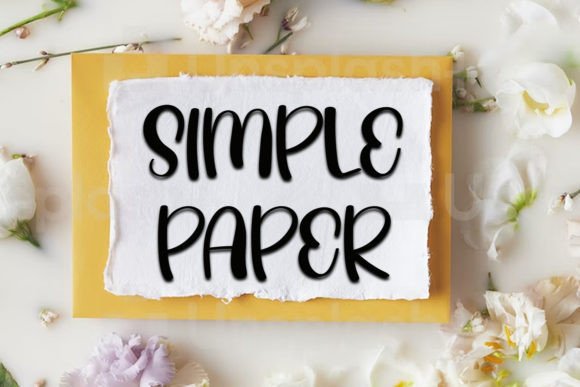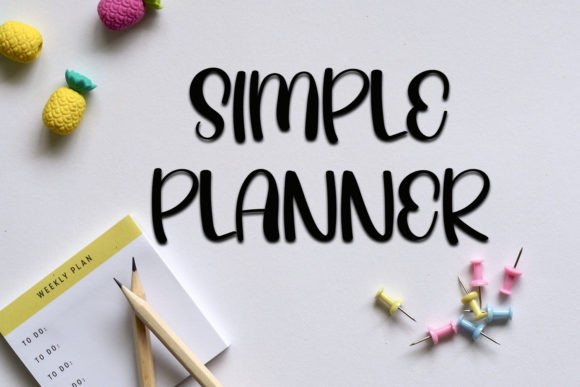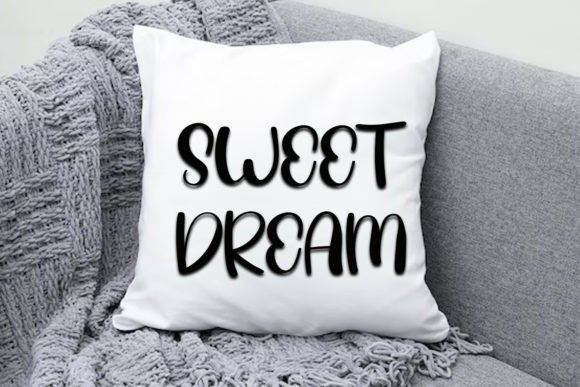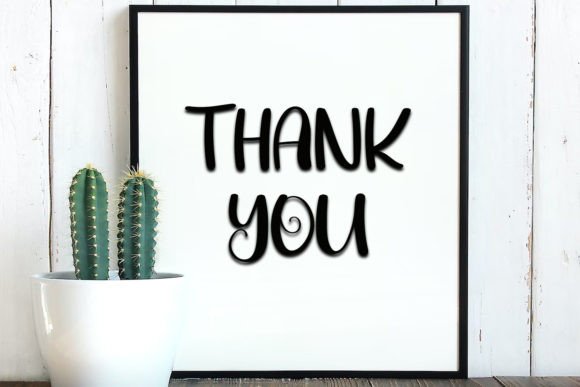
Cactus Font: The Perfect Addition to Your Design Collection
Are you a designer or crafter looking for a fresh and beautiful font to elevate your designs? Look no further than Cactus Font! This stunning font is perfect for a variety of design purposes, including YouTube banners, cover logo mockups, wedding invitations, ID cards, flyers, and crafts.
What is Cactus Font?
Cactus Font is a unique and visually appealing font that is sure to make your designs stand out. Its fresh and beautiful style makes it perfect for a wide range of projects, from modern and trendy to rustic and vintage. The font is designed to be highly versatile, making it suitable for use in a variety of contexts, from digital designs to print materials.
Key Features of Cactus Font
- Fresh and Beautiful Style: Cactus Font has a unique and visually appealing style that is sure to make your designs stand out.
- Highly Versatile: The font is suitable for use in a wide range of contexts, from digital designs to print materials.
- Easy to Read: Despite its unique style, Cactus Font is easy to read, making it perfect for use in body text and headings.
Uses for Cactus Font
Cactus Font is a highly versatile font that can be used in a wide range of design projects. Here are some of the most popular uses for the font:
- YouTube Banners: Add a touch of elegance and sophistication to your YouTube banners with Cactus Font.
- Cover Logo Mockups: Create stunning cover logo mockups with Cactus Font, perfect for use on social media profiles and websites.
- Wedding Invitations: Make your wedding invitations truly special with Cactus Font, perfect for creating beautiful and elegant designs.
- ID Cards: Create professional and stylish ID cards with Cactus Font, perfect for use in a business or organization.
- Flyers: Create eye-catching flyers with Cactus Font, perfect for promoting events, products, or services.
- Crafts: Use Cactus Font to add a personal touch to your crafts, such as handmade cards, gift tags, and scrapbooking projects.
Why Choose Cactus Font?
So why choose Cactus Font for your design projects? Here are just a few reasons:
- Unique Style: Cactus Font has a unique and visually appealing style that is sure to make your designs stand out.
- High Quality: The font is high-quality and designed to produce crisp, clear text, even at small sizes.
Tips for Using Cactus Font
Here are a few tips for using Cactus Font in your design projects:
- Use it as a Headline Font: Cactus Font is perfect for use as a headline font, adding a touch of elegance and sophistication to your designs.
- Pair it with Other Fonts: Experiment with pairing Cactus Font with other fonts to create a unique and visually appealing design.
- Use it in Digital Designs: Cactus Font is perfect for use in digital designs, such as social media graphics, website headers, and email newsletters.
- Use it in Print Materials: The font is also suitable for use in print materials, such as brochures, flyers, and business cards.
Cactus Font is a fresh and beautiful font that is perfect for designers and crafters looking to elevate their designs. With its unique style, high-quality design, and ease of use, it’s a great addition to any design collection. Whether you’re creating YouTube banners, cover logo mockups, wedding invitations, or crafts, Cactus Font is sure to make your designs stand out.